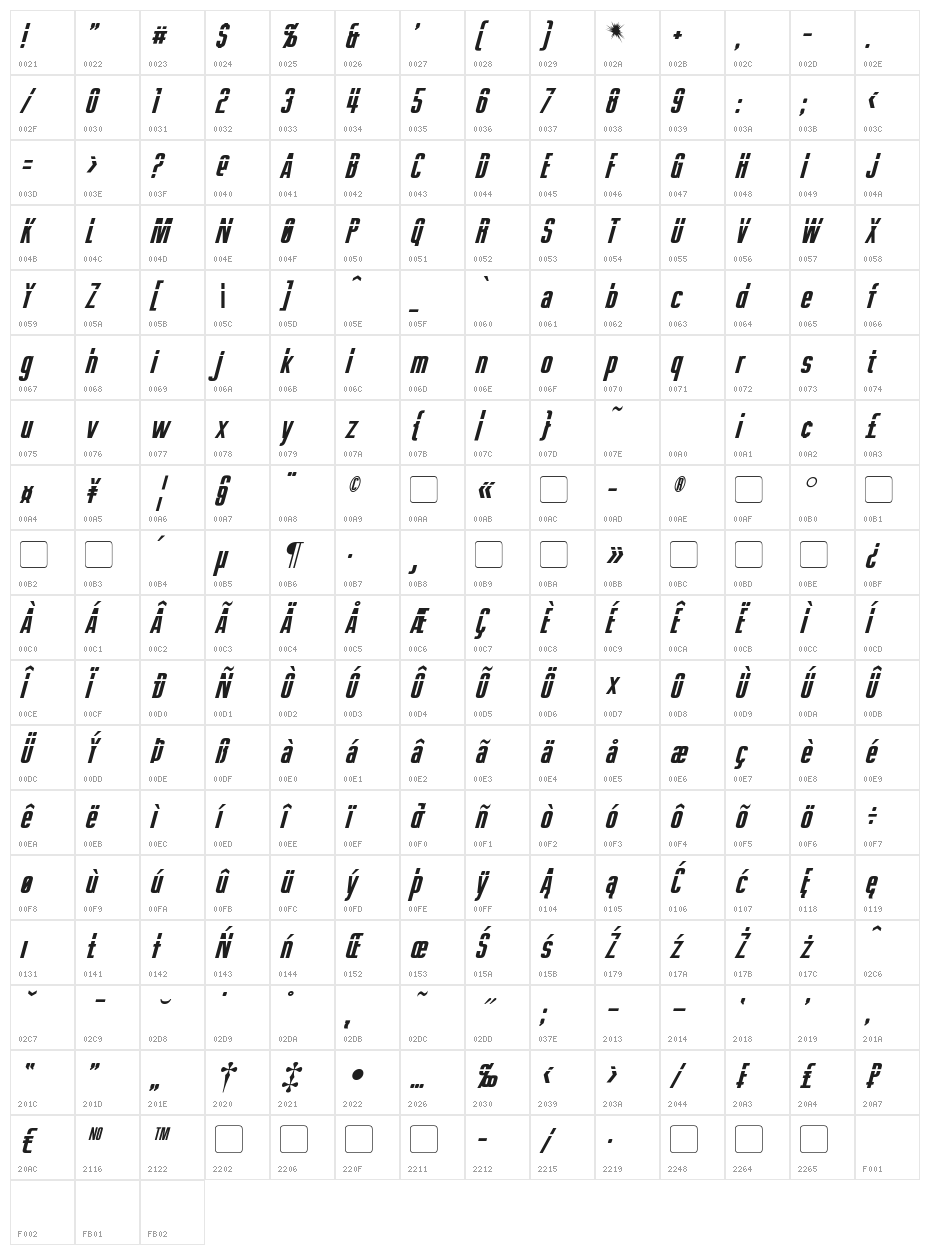
Phelps Italic Font
Phelps Italic Description
This font features a dynamic and modern italic style with a strong forward slant, giving it a sense of motion and energy. The characters are bold and condensed, with a sleek and streamlined appearance. The uppercase and lowercase letters maintain consistent proportions, while the numerals and special characters complement the overall design. The strokes are uniform, with medium contrast, enhancing readability while maintaining a stylish look. This font is ideal for projects that require a bold and contemporary aesthetic.
| Proposed Projects | Ideal for sports branding, dynamic posters, modern advertising, and eye-catching headlines. |